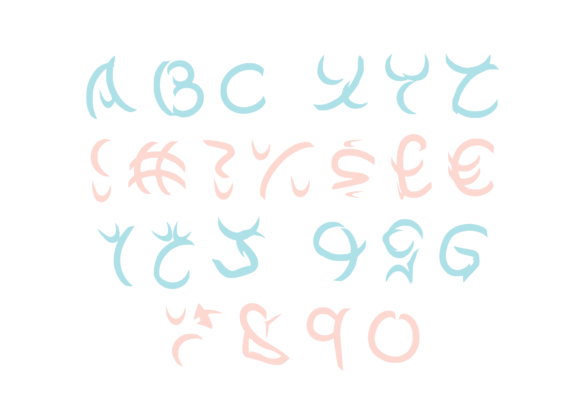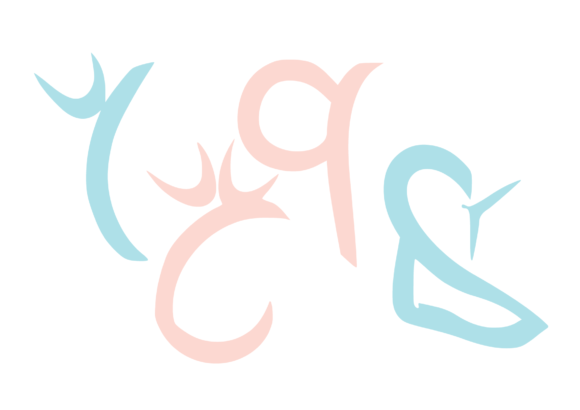
Introduction to Dancing Ladies Font
Have you ever been working on a creative project, and suddenly a spark of inspiration hits you? Maybe it’s a quirky idea, a bold color scheme, or an unusual font that sets your design apart. For designers, those ‘aha’ moments are what make the job so exciting. And, for those looking to add a playful touch to their next design, we’ve got just the thing – the Dancing Ladies Font.
This high-quality font is based on the whimsical movements of dancers, making it a unique addition to any design project. With its transparent background and free download, you can easily incorporate it into your creative work. Whether you’re working on a branding project, a social media campaign, or a digital art piece, the Dancing Ladies Font is sure to bring a smile to your audience’s faces.
As a valuable design resource, the Dancing Ladies Font offers endless possibilities for creative expression. So, get ready to add a dash of whimsy to your next project and make a lasting impression with this one-of-a-kind font.
Dancing Ladies Font Key Features
- High-quality design: The Dancing Ladies Font is a beautiful and elegant script font, perfect for creative projects.
- Transparent background: This font features a transparent background, allowing for easy customization and versatility in design.
- Unique, whimsical design: The Dancing Ladies Font features a unique, whimsical design that adds a touch of elegance and sophistication to any creative project.
Honest Review: Dancing Ladies Font
As a designer, I’m always on the lookout for unique and high-quality design resources to elevate my creative projects. The Dancing Ladies Font caught my eye, and I decided to give it a try.
What works well: ✨ The Dancing Ladies Font has a charming, whimsical feel that’s perfect for feminine or vintage-inspired designs. The font is highly customizable, allowing me to adjust the size, color, and style to fit my project’s needs. I also appreciate that the font comes with a transparent background, making it easy to layer over other design elements.
Some limitations: ⚠️ While the Dancing Ladies Font is a great addition to any design toolkit, I found the free download version to be a bit limited in terms of style variations and font sizes. Additionally, the font may not be suitable for more formal or corporate projects, as it has a playful, artistic feel.
Overall, I’m impressed with the Dancing Ladies Font. It’s a great design resource for anyone looking to add a touch of elegance and whimsy to their creative project. I’d recommend it for personal or non-commercial projects, and I’m happy to have it in my design library.
- High-quality, customizable design
- Perfect for feminine or vintage-inspired designs
How to Use Dancing Ladies Font
To use the Dancing Ladies Font in PowerPoint or Word, follow these steps: install the font file on your computer, select the font in your design, and adjust the font size and style as needed. This font is perfect for presentations and documents that require a touch of sophistication and elegance.
Tips for Getting the Most Out of the Dancing Ladies Font
To get the most out of the Dancing Ladies Font, be sure to use it on a transparent background to allow for maximum flexibility and customization. This font is also ideal for use in creative projects that require a touch of whimsy and playfulness.